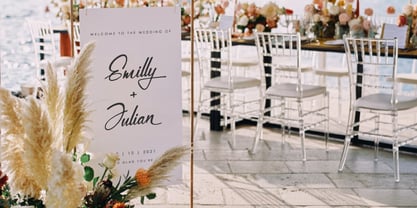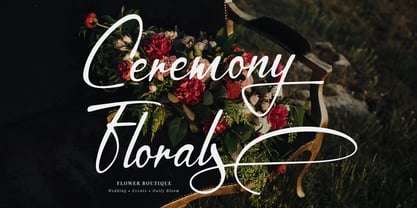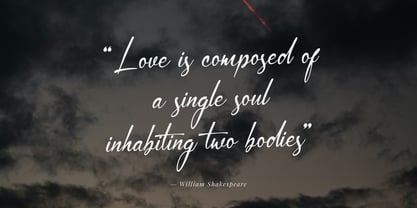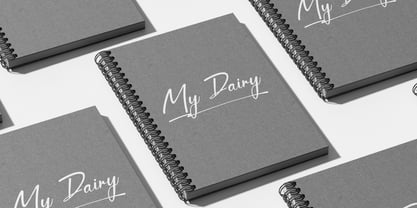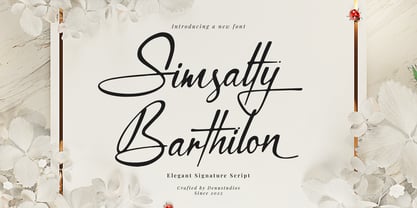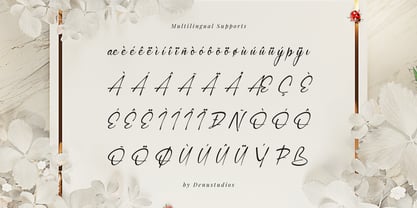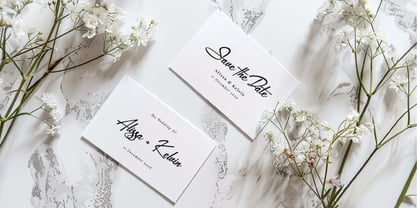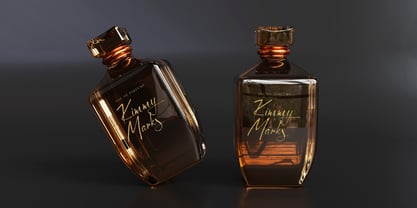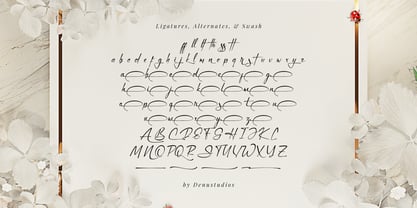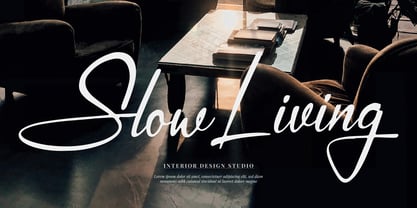
Simsalty Barthilon
by Denustudio
The Simsalty Barthilon Font Family was designed by Dede Nugraha and published by Denustudio. Simsalty Barthilon contains 2 styles and family package options. More about this family
Simsalty Barthilon | Elegant Signature, from Denustudios, suitable for any projects such as: logos, branding projects, homeware designs, product packaging, mugs, quotes, posters, shopping bags, t-shirts, book covers, name card, invitation cards, greeting cards, label, photography, watermark, special events, and all your other lovely projects that need Script a taste.